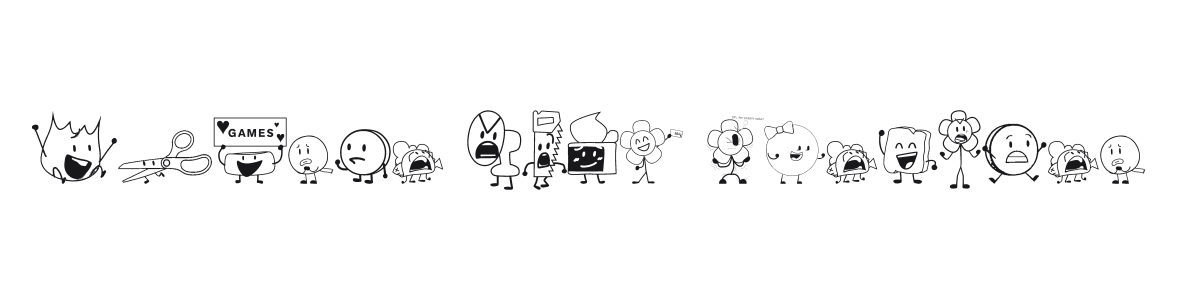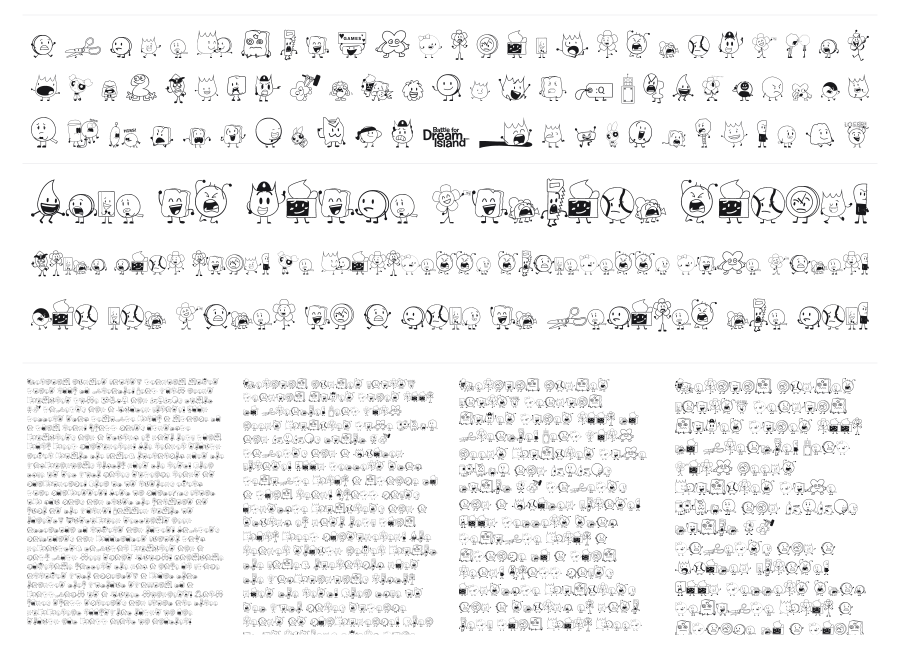
Object Show Ultimate
Object Show Ultimate is a dingbat font built from illustrated cartoon characters drawn in the style of the 'object show' internet animation genre. Each glyph is a unique hand-sketched figure with an expressive face, arms, and legs, replacing traditional letters with fan-art-style characters. It captures the rough, energetic charm of indie web animation.